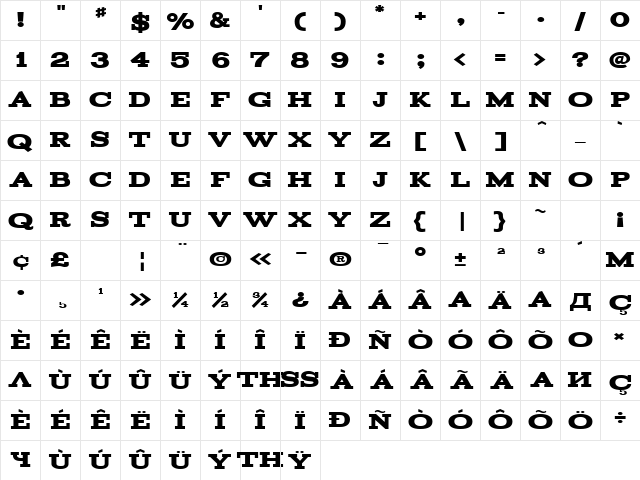
Complete Acknowledgement Regular glyph index. Displaying only characters natively supported by Acknowledgement Regular font.
Acknowledgement is a composed and adaptable typeface that performs quietly and consistently across a wide range of design contexts.